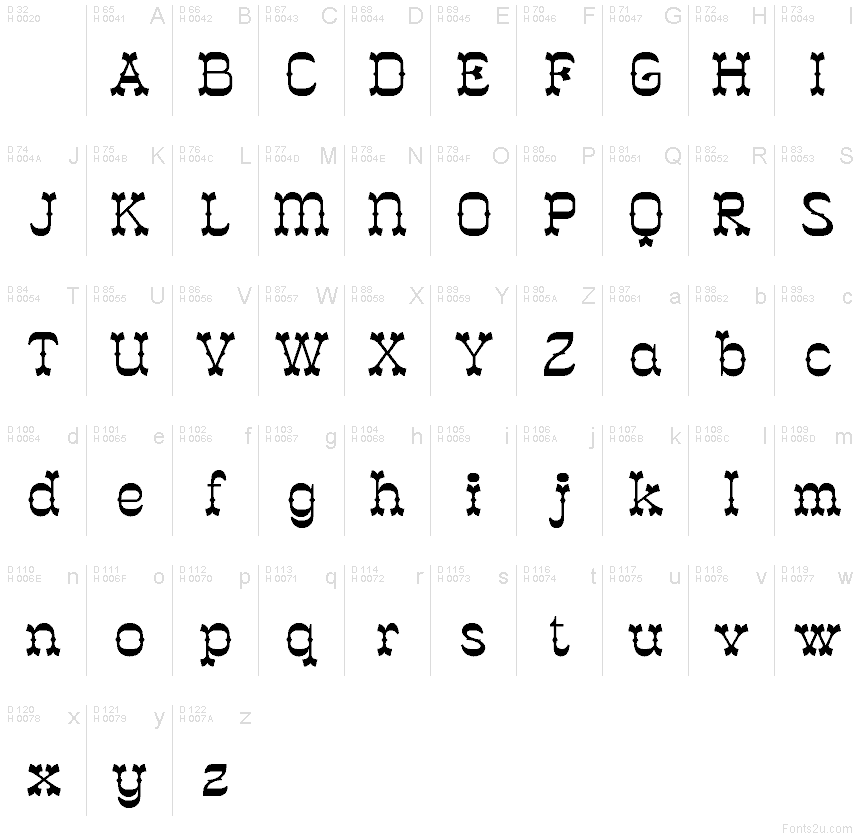
CS Silence font is a display font with a western style designed by Craft Supply Co. The retro-inspired typeface combines decorative touches, geometric elements, and unique shape interactions for headings that always stand out. Art deco influences can be found within the letters which reflect both fluid and hard-angled aspects.